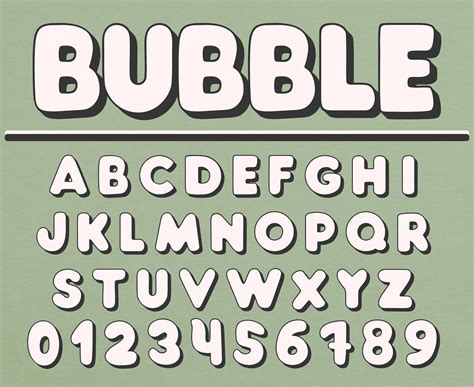
Best Letter Fonts for Bubble Text Effects
Readers, have you ever been creating a design and felt that something was missing, that it just wasn't quite popping? Perhaps you've tried adding some eye-catching colors or cool gradients, but something still feels off. Maybe the missing ingredient is a **bold and playful bubble text effect**! This eye-catching style can enhance your designs, making them more dynamic and engaging. But achieving that perfect bubble effect requires the right font, and that's where we come in. We've poured over countless fonts, analyzed their unique characteristics, and determined the best letter fonts for creating stunning bubble text effects.
We've got your back! This guide will explore a world of fonts that excel at creating bubble text effects, whether you're designing logos, social media graphics, website banners, or even invitations. From classic choices to more quirky and modern options, you'll find a font that perfectly captures the look and feel you're aiming for.
Embracing the Delightful World of Bubble Fonts
Bubble fonts are known for their rounded, playful, and often slightly distorted shapes. This unique aesthetic can be traced back to the early days of comic books and cartoons, where artists used hand-drawn letters to create dynamic and expressive text. With the rise of digital design, bubble fonts have become increasingly popular, offering a fun and engaging way to add personality to any project.
If you're looking for a font that will bring a touch of whimsy and charm to your design, bubble fonts are definitely worth exploring. They can be used for a wide range of projects, from children's books and birthday invitations to social media graphics and marketing materials. The right bubble font can help you create a design that is both memorable and visually appealing.
The Importance of Choosing the Right Letter Font
Choosing the right letter font is crucial for creating a successful bubble text effect. The font you select will heavily influence the overall look and feel of your design. A font that's too thin or too ornate might not translate well into a bubble effect, while a font that's too bold or too geometric might lack the playfulness that bubble fonts are known for.
Fortunately, there are many fonts specifically designed to achieve that coveted bubble effect. These fonts often feature rounded corners, bouncy curves, and a playful aesthetic that can make your text truly stand out.
In this guide, we'll explore a range of letter fonts perfect for bubble text effects. From classic favorites to newer and more unique options, we'll guide you through the best choices for your specific design needs.
Classic Bubble Fonts
These fonts have stood the test of time and remain popular choices for creating bubble text effects.
(H3) Comic Sans MS
A classic choice for bubble text, Comic Sans MS is known for its playful, rounded letters and casual feel. It's often used for children's books, comic strips, and informal designs. However, it's important to use Comic Sans MS sparingly, as it can be overused and become cliché. While it might not be the most polished font, it undeniably brings a sense of fun and nostalgia to any design.
(H3) Chalkboard
As the name suggests, Chalkboard fonts resemble handwritten text on a chalkboard. They often feature a slightly uneven, hand-drawn aesthetic that adds a touch of authenticity and charm. Chalkboard fonts work well for creating bubble text effects, especially for designs with a vintage or rustic feel.
(H3) Bangers
Bangers is a playful and bold font with a retro feel. Its exaggerated curves and rounded shapes make it perfect for creating eye-catching bubble text effects. Bangers works well for headlines, titles, and other prominent text elements, adding a touch of fun and energy to your design.
Modern Bubble Fonts
These fonts bring a fresh and contemporary twist to the classic bubble font aesthetic, offering a variety of unique styles to explore.
(H3) Bubblegum Sans
Bubblegum Sans lives up to its name with its playful, bouncy curves and bright, cheerful vibe. It's a great choice for creating bubble text effects for designs aimed at younger audiences, such as children's toys or candy packaging.
(H3) Poppins
Poppins is a versatile font that can be used in various ways, including creating bubble text effects. It's a clean and modern sans-serif font with a slightly rounded appearance that makes it perfect for creating playful and sophisticated text effects.
(H3) Lobster
Lobster is a bold and expressive font with a quirky, handwritten feel. Its rounded letters and uneven spacing give it a playful and dynamic appearance, perfect for creating unique bubble text effects.
Beyond the Basics: Exploring Different Styles
While classic and modern bubble fonts are great starting points, you have even more options to consider. Let's dive into different styles to find a perfect match for your design vision.
(H3) Handwritten Bubble Fonts
These fonts capture the free-flowing, expressive nature of handwritten text, offering a more personal and unique touch. These fonts add a special touch of authenticity and warmth to your design, making them ideal for invitations, greeting cards, and personal projects.
(H3) Cartoon Bubble Fonts
Cartoon bubble fonts are inspired by comic books and cartoons, featuring bold, playful letters with a sense of energy and movement. These fonts are perfect for designs that are fun, whimsical, and eye-catching. If you're aiming for a design that exudes a sense of fun and lightheartedness, cartoon bubble fonts will be your best bet.
(H3) 3D Bubble Fonts
These fonts create a sense of depth and dimension, making your text appear to pop out of the page. 3D bubble fonts are highly versatile and can be used for a variety of projects, from websites and logos to social media graphics and product packaging. These fonts are excellent for making your design stand out and creating a visual impact.
Tips for Using Bubble Fonts Effectively
Now that you have a better understanding of the vast variety of bubble fonts available, let's explore some tips to help make the most of these fonts in your designs.
(H3) Choosing the Right Font Size
A font that's too small might lose its personality. Conversely, a font that's too large might overwhelm your design, becoming too dominant. Finding the right font size is crucial for maintaining balance and ensuring that your text is easy to read.
(H3) Color Combinations
Color plays a significant role in creating a visually appealing design. When using bubble fonts, consider color combinations that enhance the playful and cheerful nature of the text.
(H3) Spacing and Alignment
Proper spacing and alignment are essential for creating a legible and visually appealing design. Spacing that's too tight might make the text difficult to read, while spacing that's too loose might create a disjointed appearance. The same principle applies to alignment, ensuring that the text is aligned in a way that complements the rest of the design.
A Detailed Table Breakdown: Where to Find Awesome Bubble Fonts
Where can you find these fantastic bubble fonts? There are several excellent sources, both free and premium, offering a wide variety of styles to explore.
| Website | Type | Features |
|---|---|---|
| Google Fonts | Free | Wide selection of free fonts, including many bubble fonts perfect for various projects. Easy integration for website use. |
| Font Squirrel | Free/Premium | Large collection of free and premium fonts, including bubble fonts with unique characteristics. Provides clear licensing information. |
| Creative Market | Premium | Offers a curated collection of high-quality fonts, including many exclusive bubble fonts. Offers bundles and discounts. |
Frequently Asked Questions
(H3) What are some popular bubble fonts for logos?
For logos, consider fonts like Bangers, Lobster, or Bubblegum Sans. These options offer a playful and memorable aesthetic, perfect for brands that want to capture a sense of fun and energy.
(H3) Are bubble fonts suitable for website designs?
Bubble fonts can be used effectively for website designs, especially for headlines, call-to-actions, or specific sections where you want to add a playful touch. However, it's crucial to use them sparingly and ensure readability, as excessive use of bubble fonts might create a cluttered and unprofessional appearance.
(H3) Can I use bubble fonts for printed materials?
Absolutely! Bubble fonts work well for printed materials, particularly for invitations, greeting cards, or marketing materials where you want to create a unique and inviting look. Just be sure to choose a font that reproduces well at the desired print size.
It's clear that the right bubble font can add a touch of charm, playfulness, and visual appeal to your designs. Whether you prefer classic options like Comic Sans MS, modern favorites like Poppins, or unique handwritten styles, there's a bubble font out there for every project. Remember to experiment with different fonts, color combinations, and spacing to create a design that truly stands out and reflects your unique style. And be sure to check out our other articles on design trends, typography, and creative ideas for even more inspiration!